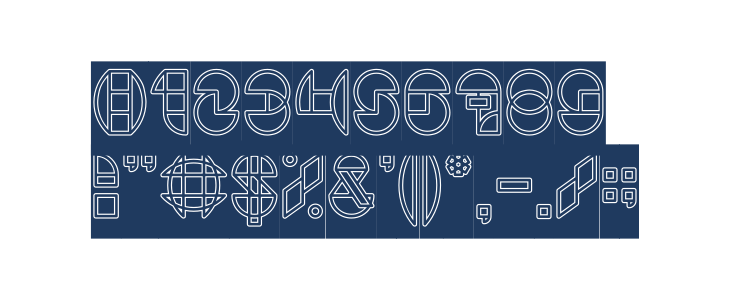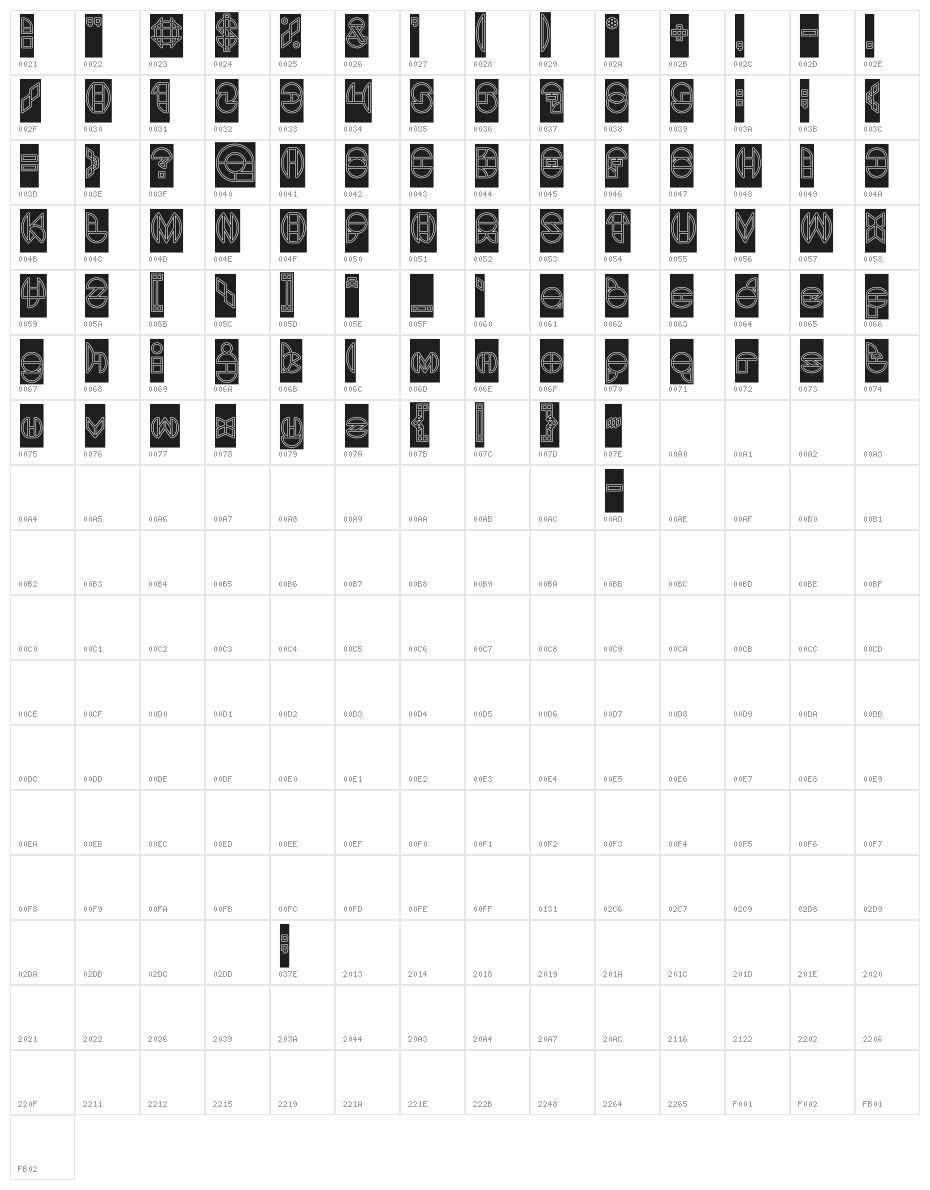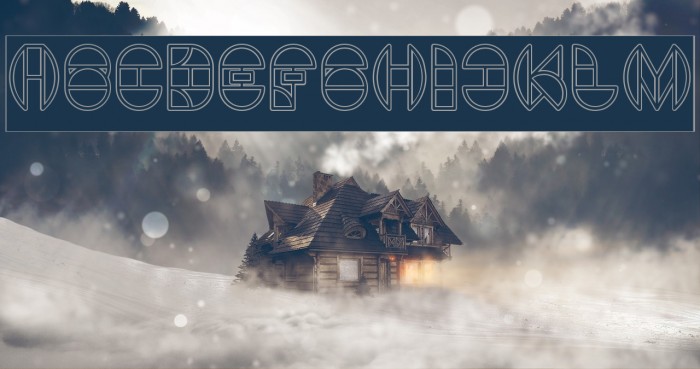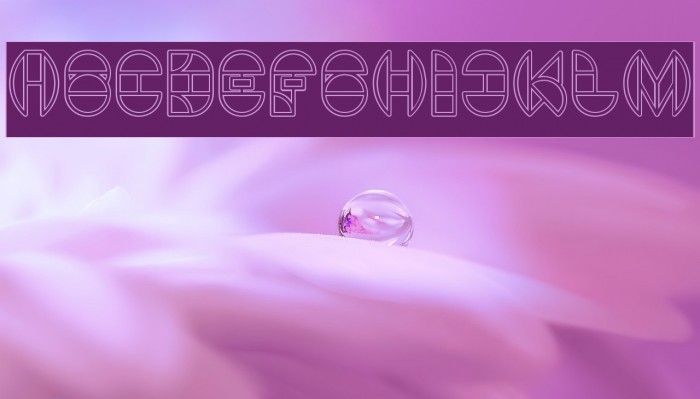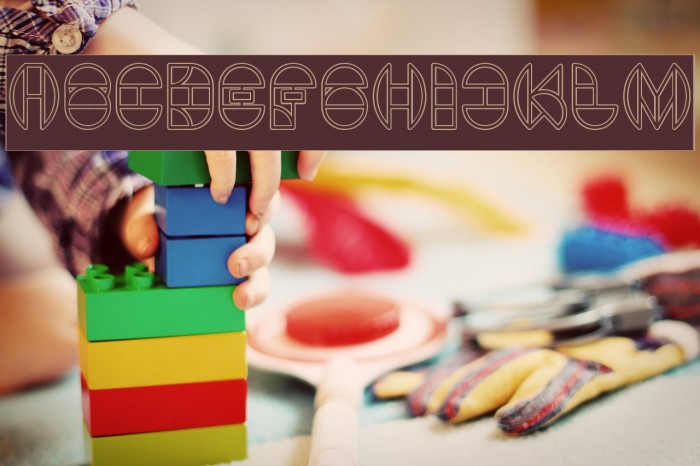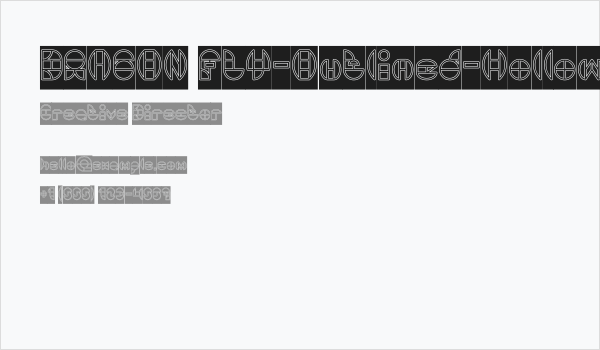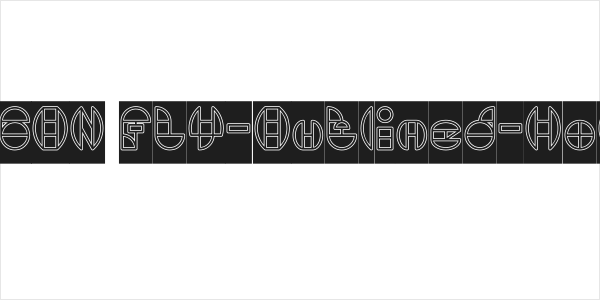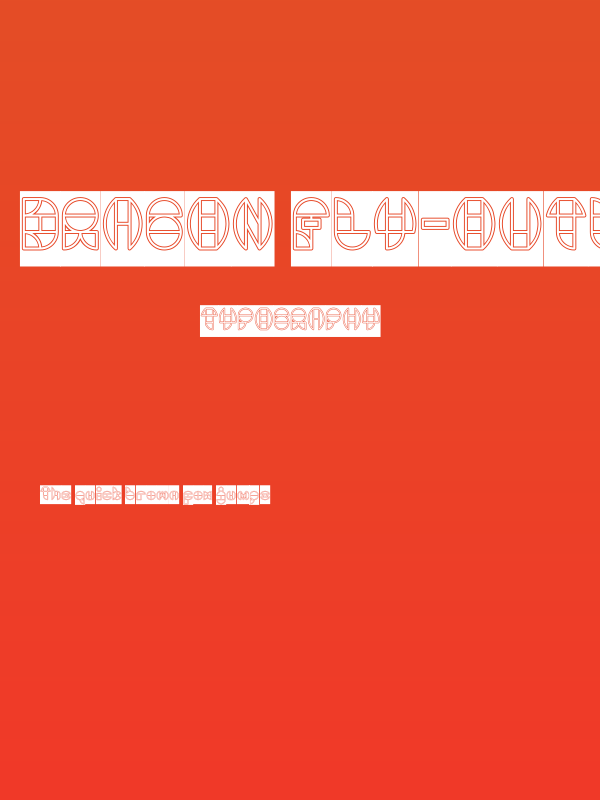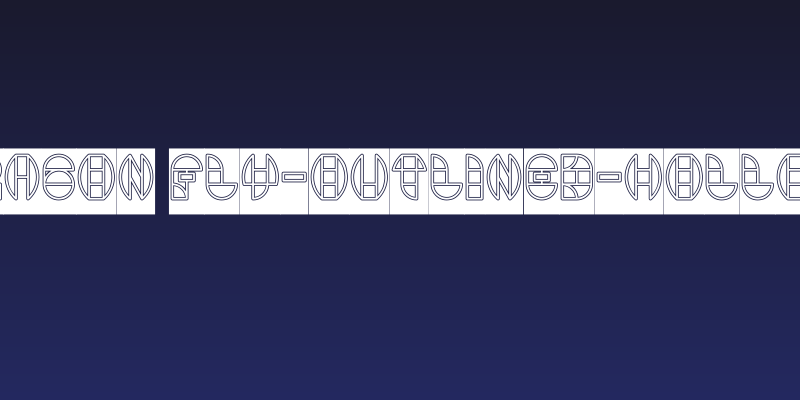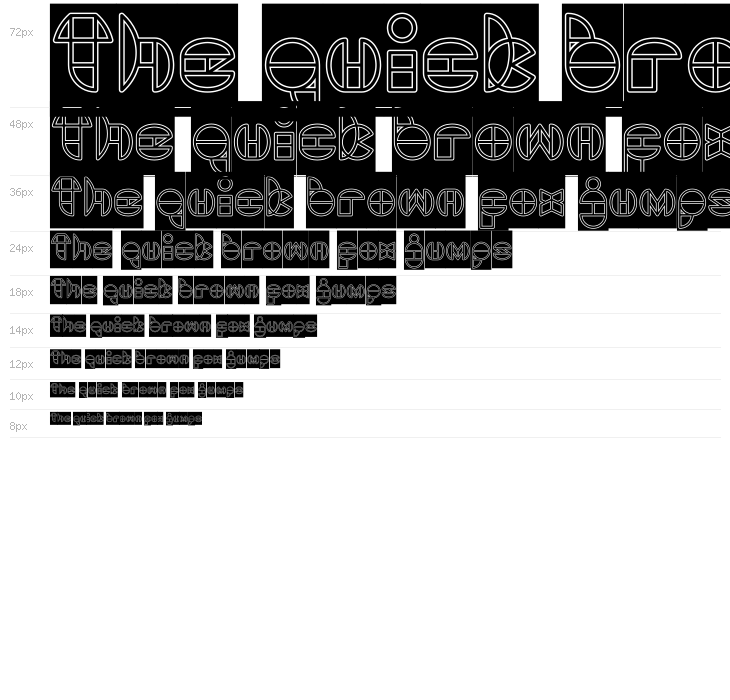
DRAGON FLY-Outlined-Hollow Font
DRAGON FLY-Outlined-Hollow Description
This font features a unique, outlined and hollow design that gives it a futuristic and geometric appearance. Each character is crafted with precision, using a combination of straight lines and curves to create a visually striking effect. The uppercase and lowercase letters maintain a consistent style, with a focus on symmetry and balance. Numbers and special characters are equally distinctive, incorporating the same outlined aesthetic. The font's hollow nature allows for creative use of background colors and textures, making it versatile for various design projects.
| Proposed Projects | Ideal for sci-fi themed designs, modern posters, digital artwork, and branding that requires a bold and innovative look. |